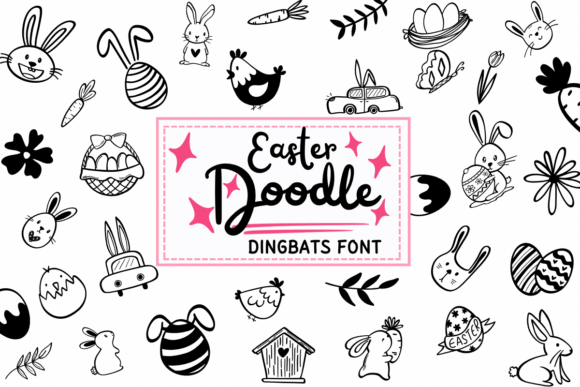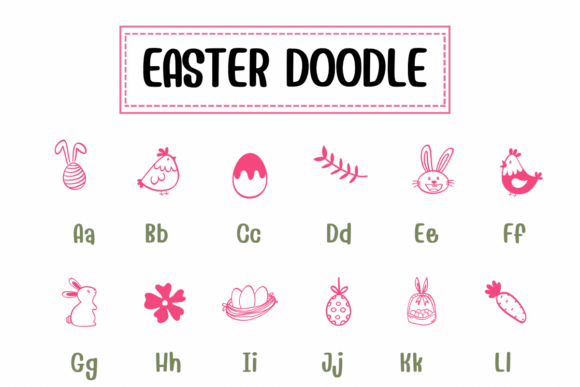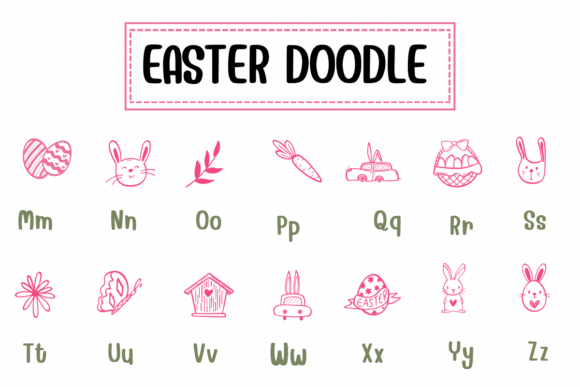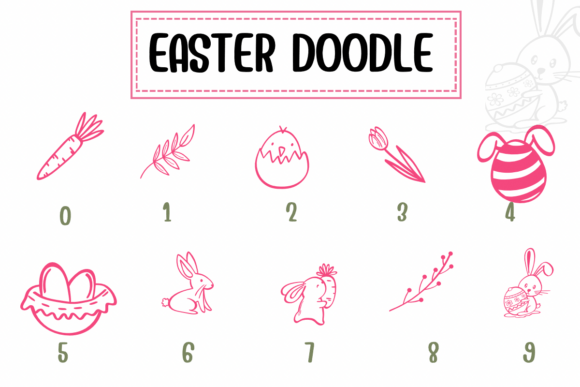
Easter Doodle Font: Cute Dingbats for Cricut & Craft Projects
About the Easter Doodle Font
The wait is over! The incredible Easter Doodle Font is now available for your design toolkit. Easter Doodle is a charming dingbats font filled with hand-drawn, whimsical Easter-themed illustrations. From bunnies and eggs to flowers and festive doodles, this font makes it easy to add a cute and creative touch to your holiday designs. Perfect for invitations, crafts, kids’ projects, scrapbooking, and seasonal branding, it’s a must-have for designers who love playful, ready-to-use graphics.
Easter Doodle Font shines in projects requiring a lighthearted and playful touch. Ideal uses include greeting cards, children’s books, Easter-themed branding, and social media graphics. Avoid using it for large amounts of body text or UI elements; its whimsical nature can hinder readability in those contexts.
Pairing Easter Doodle with a clean sans-serif like Open Sans for body text creates a balanced contrast. For a more sophisticated feel, consider pairing it with a delicate script font for accents. Avoid pairing it with heavy or overly geometric fonts, as they would clash with the font’s hand-drawn charm.
The overall personality is cheerful and informal, making it a perfect choice for brands targeting a young or family-oriented audience. Its hand-drawn quality conveys authenticity and approachability.